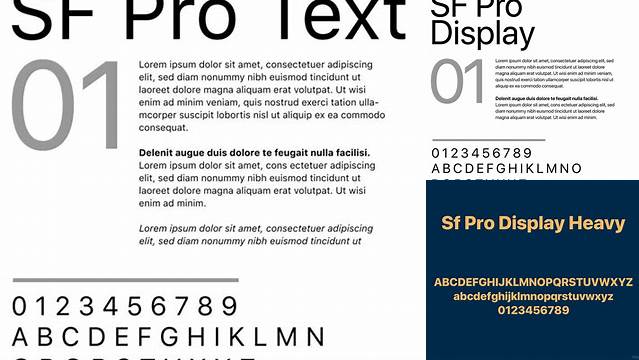
SF Pro Text Heavy Font: A Comprehensive Guide
Hey guys! Today, we're diving deep into the world of fonts, specifically the SF Pro Text Heavy font. This font, often found gracing the screens of Apple devices, is a powerhouse when it comes to readability and visual appeal. Whether you're a seasoned designer or just curious about typography, this guide will give you a 360-degree view of this fantastic typeface. We'll cover everything from its origins and characteristics to its best uses and how to get your hands on it. So, let's get started!
1. What is SF Pro Text Heavy?
Let's kick things off with the basics. The SF Pro Text Heavy font is a member of the San Francisco (SF) font family designed by Apple. It's a sans-serif typeface, meaning it lacks the small decorative strokes (serifs) at the end of characters. This gives it a clean, modern look. What sets the Heavy variant apart is its weight; it's bolder and more substantial than the regular SF Pro Text, making it ideal for headlines, titles, and anything that needs to grab attention. Imagine needing a font that screams readability and professionalism – that's SF Pro Text Heavy for you.
This font wasn't just pulled out of thin air; it's the result of meticulous design aimed at optimizing legibility across various screen sizes and resolutions. Apple needed a font that looked sharp on everything from the tiny screen of an Apple Watch to the expansive display of an iMac, and SF Pro Text Heavy fits the bill perfectly. Its robust letterforms ensure that each character stands out, even in challenging conditions. We’ll go into more detail about its characteristics later, but for now, just remember: it’s bold, beautiful, and built for clarity.
Think of it like this: you're designing a website and you need a heading font that's both stylish and easy to read. The SF Pro Text Heavy can be your go-to. Or maybe you're working on a poster and need the text to pop. Again, this font is a strong contender. Its versatility makes it a favorite among designers, and its widespread use in Apple's ecosystem has made it instantly recognizable to millions. So, let's keep digging in to discover more about this remarkable font.
2. The History and Development of SF Pro Text Heavy
To truly appreciate the SF Pro Text Heavy font, it's worth taking a trip down memory lane and understanding its historical context. The San Francisco font family, from which SF Pro Text Heavy originates, was introduced by Apple in 2014 as a replacement for Helvetica Neue. This was a significant move, as Helvetica Neue had been a staple in Apple's design language for years. So, why the change? Well, Apple needed a font that was specifically optimized for its Retina displays, which boast incredibly high pixel densities.
Retina displays demand fonts that are crisp and clear, even at small sizes. The existing fonts at the time weren't always up to the task, leading to some readability issues. Enter San Francisco, designed with the nuances of screen-based typography in mind. The original San Francisco font was a system font designed primarily for the Apple Watch, known for its compact and highly legible design. Over time, the San Francisco family expanded to include variants like SF Pro Text, tailored for macOS, iOS, and tvOS.
SF Pro Text Heavy emerged as a crucial member of this family, offering a bolder weight that's perfect for headlines and emphasis. It’s designed with a slightly taller x-height (the height of lowercase letters) and wider letterforms compared to its predecessors, enhancing readability even further. This evolution reflects Apple's commitment to user experience, ensuring that its products are not only visually appealing but also highly functional. It's a story of continuous refinement and adaptation, driven by the needs of modern digital interfaces. So, when you see the SF Pro Text Heavy, you're not just seeing a font; you're seeing the result of years of design innovation.
3. Key Characteristics of SF Pro Text Heavy
What makes the SF Pro Text Heavy font stand out in a sea of typefaces? It's all in the details! Let's break down the key characteristics that define this font and make it a designer's darling. First and foremost, its weight – being the “Heavy” variant, it’s noticeably bolder than its siblings in the SF Pro family. This gives it a strong presence, making it ideal for situations where you need text to command attention. Think of headings, subheadings, or any text you want to really pop.
Beyond its weight, the letterforms themselves are meticulously crafted for clarity. The taller x-height, as we mentioned earlier, plays a crucial role in legibility, particularly at smaller sizes. This means that even when the font is scaled down, the characters remain distinct and easy to read. The spacing between letters, also known as kerning, is another area where SF Pro Text Heavy shines. It’s carefully adjusted to ensure that the text flows smoothly and evenly, without any awkward gaps or overlaps.
The sans-serif nature of the font contributes to its modern and clean aesthetic. The absence of serifs gives it a minimalist feel, perfect for contemporary designs. And while it's a bold font, it manages to maintain a sense of elegance and sophistication. It's not just about being loud; it's about being clear and impactful. The SF Pro Text Heavy also has excellent rendering across different screen types, a testament to its design for high-resolution displays. So, whether it's a website, an app, or a print project, this font is designed to look its best. It’s a harmonious blend of form and function, making it a versatile choice for a wide range of applications.
When using SF Pro Text Heavy in a logo, consider the overall design. The font should complement the other elements of the logo, such as the icon or symbol. A logo is a cohesive unit, and every part should work together to create a unified message. A smart thing to do when designing logos is to experiment with different font weights. The